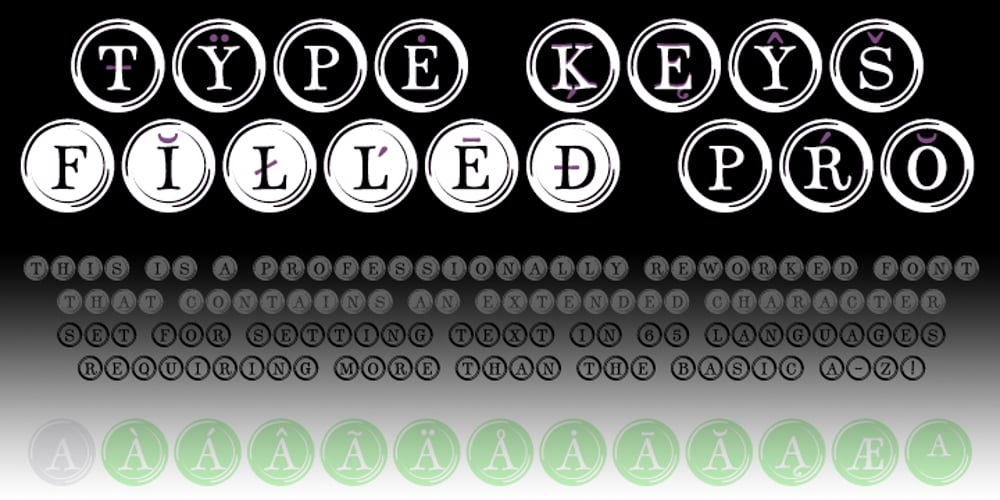
TypeKeys Pro Font Family was designed by Ronna Penner, Roger S. Nelsson and published by CheapProFonts. TypeKeys Pro contains 2 styles and family package options. A range of retro initials mimicking the keys of an old style typewriter. Expanded from just a basic ASCII character set to our usual large CheapProFonts selection of glyphs. (I’m not sure all of them appears in the beginning of words, though. ALL fonts from CheapProFonts have very extensive language support: They contain some unusual diacritic letters (some of which are contained in the Latin Extended-B Unicode block) supporting: Cornish, Filipino (Tagalog), Guarani, Luxembourgian, Malagasy, Romanian, Ulithian and Welsh. They also contain all glyphs in the Latin Extended-A Unicode block (which among others cover the Central European and Baltic areas) supporting: Afrikaans, Belarusian (Lacinka), Bosnian, Catalan, Chichewa, Croatian, Czech, Dutch, Esperanto, Greenlandic, Hungarian, Kashubian, Kurdish (Kurmanji), Latvian, Lithuanian, Maltese, Maori, Polish, Saami (Inari), Saami (North), Serbian (latin), Slovak(ian), Slovene, Sorbian (Lower), Sorbian (Upper), Turkish and Turkmen. And they of course contain all the usual “western” glyphs supporting: Albanian, Basque, Breton, Chamorro, Danish, Estonian, Faroese, Finnish, French, Frisian, Galican, German, Icelandic, Indonesian, Irish (Gaelic), Italian, Northern Sotho, Norwegian, Occitan, Portuguese, Rhaeto-Romance, Sami (Lule), Sami (South), Scots (Gaelic), Spanish, Swedish, Tswana, Walloon and Yapese.